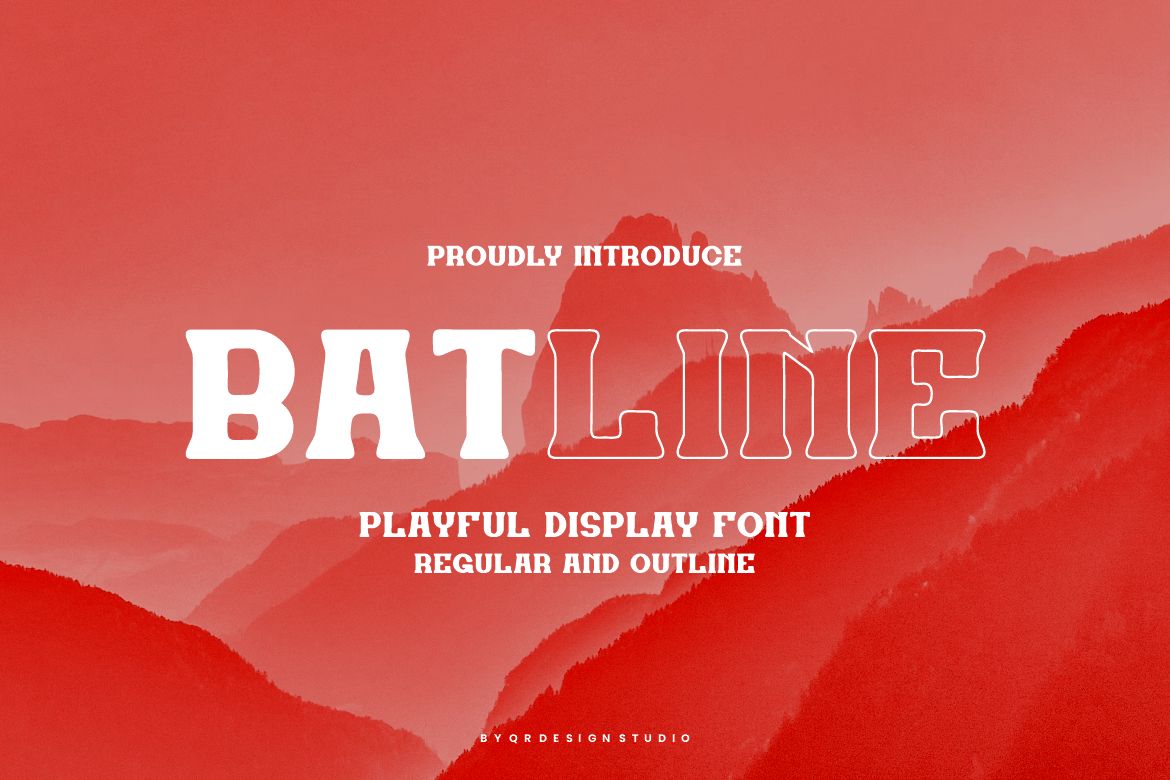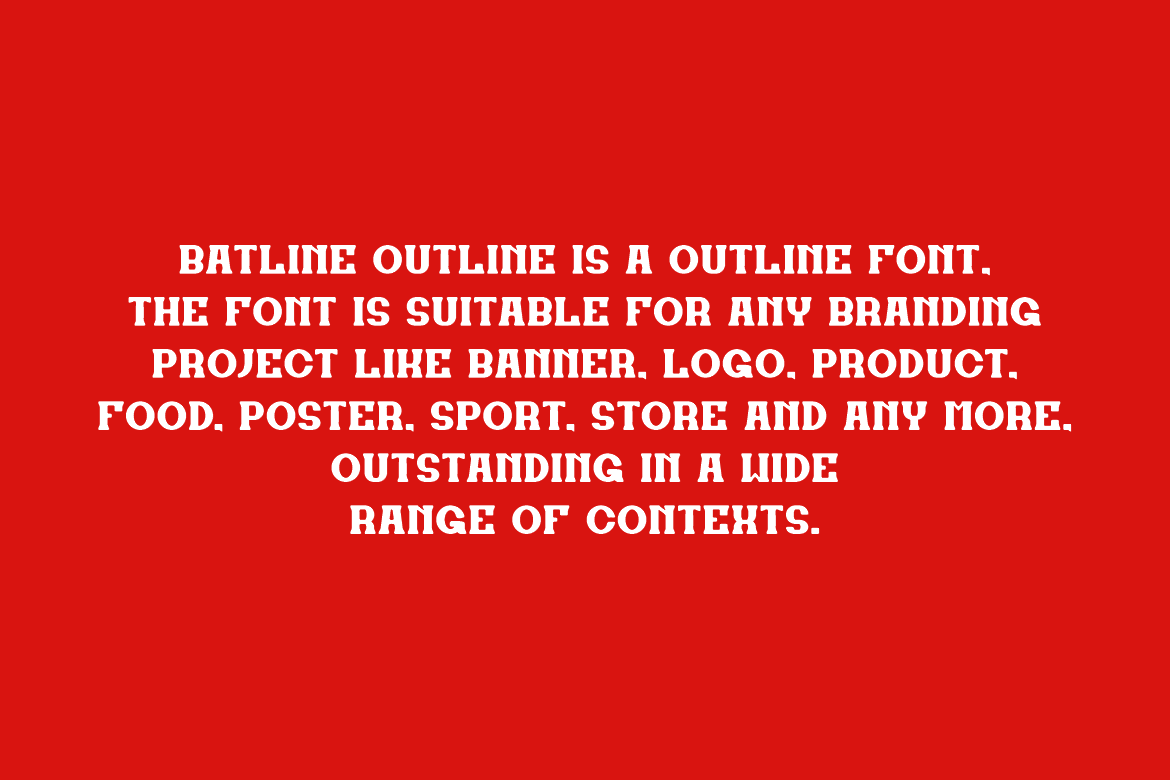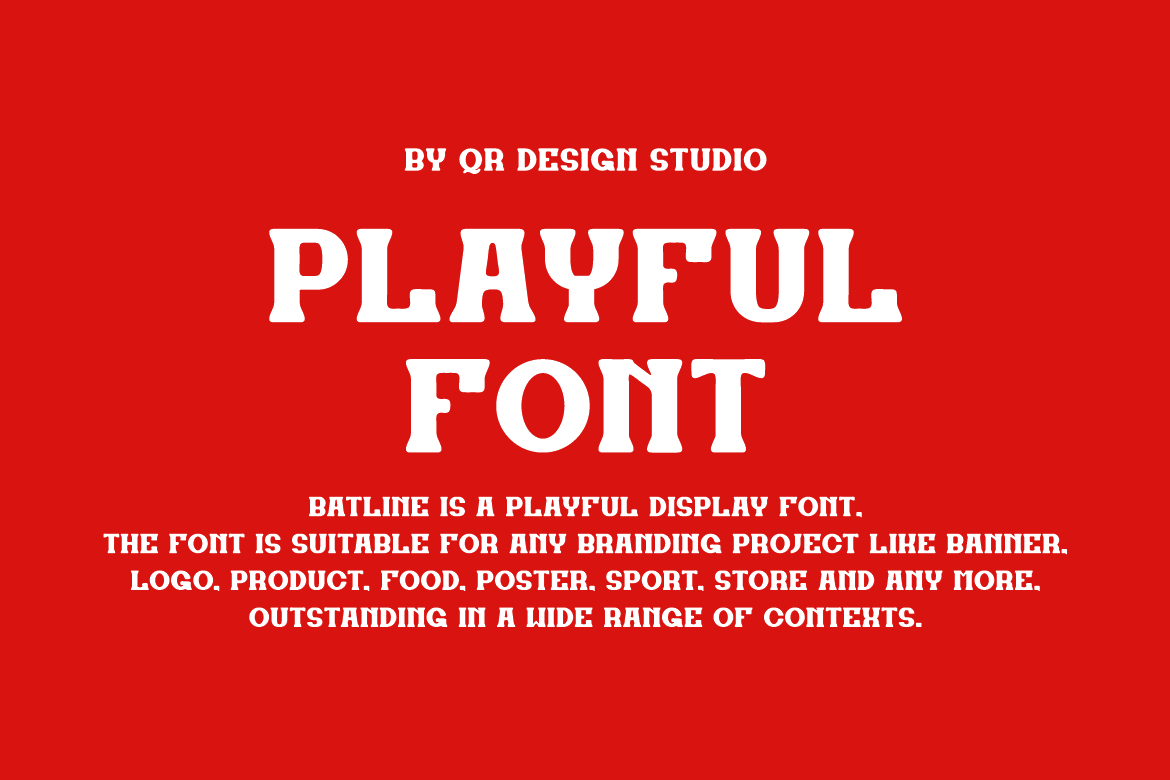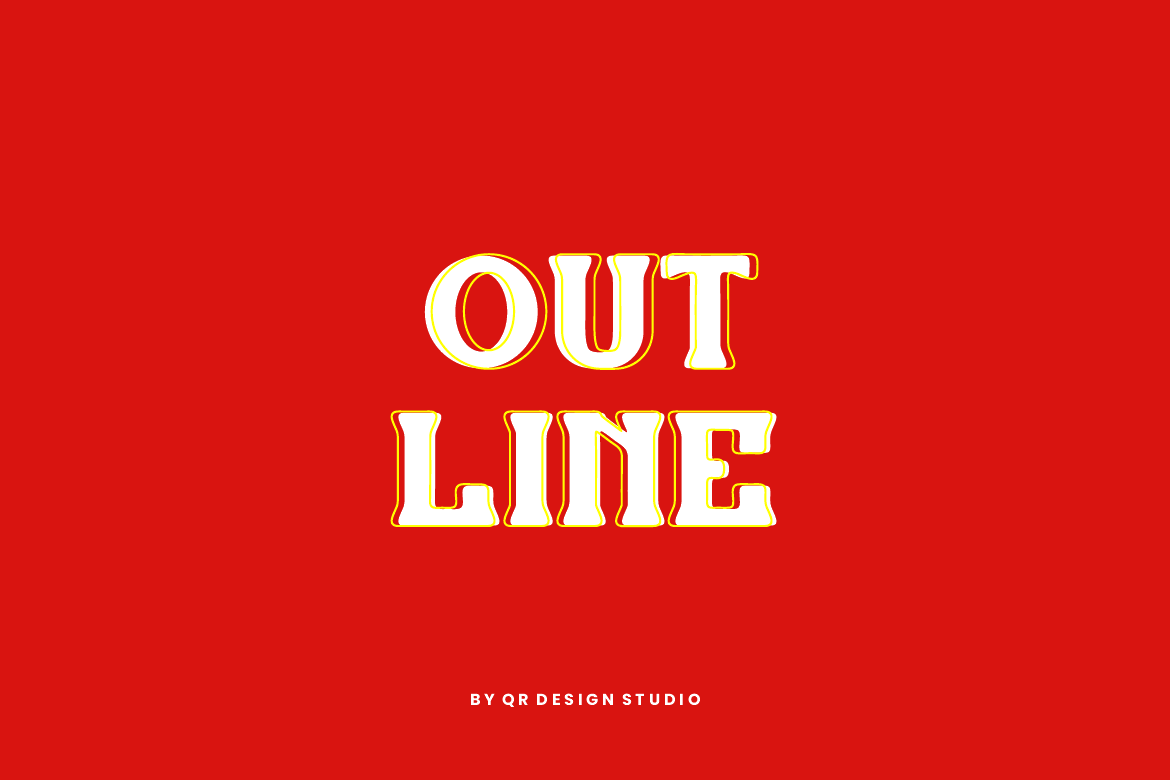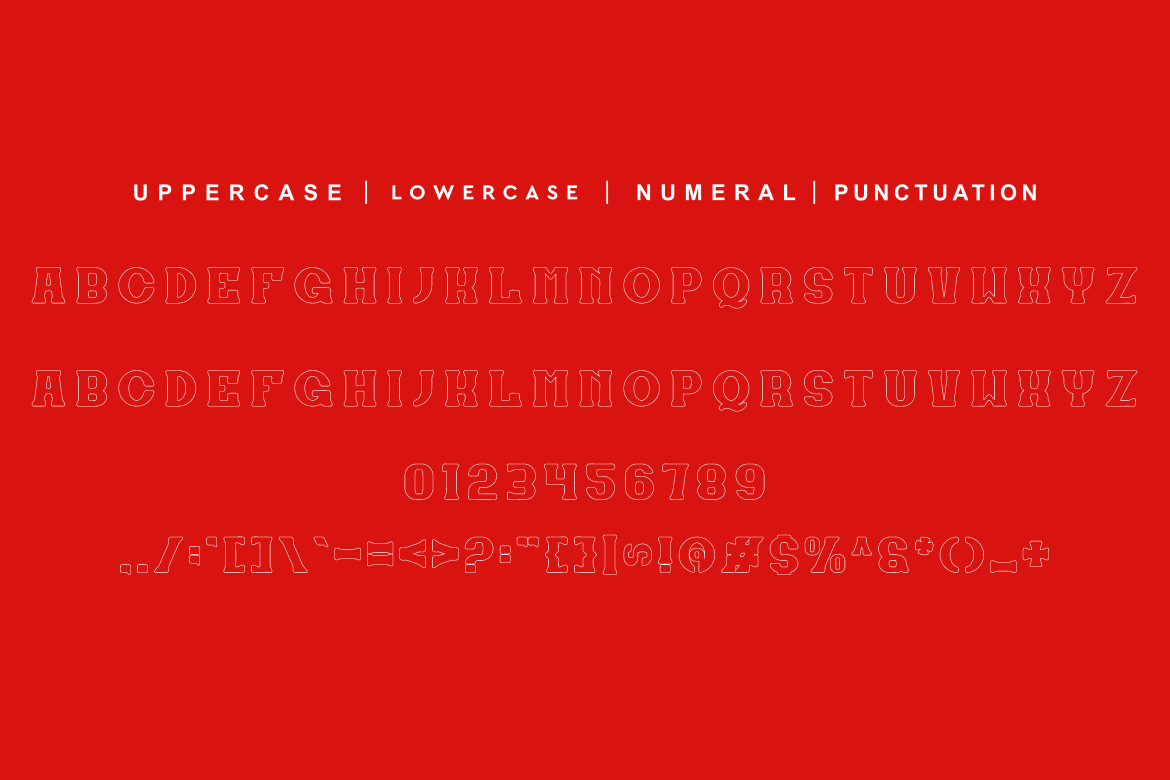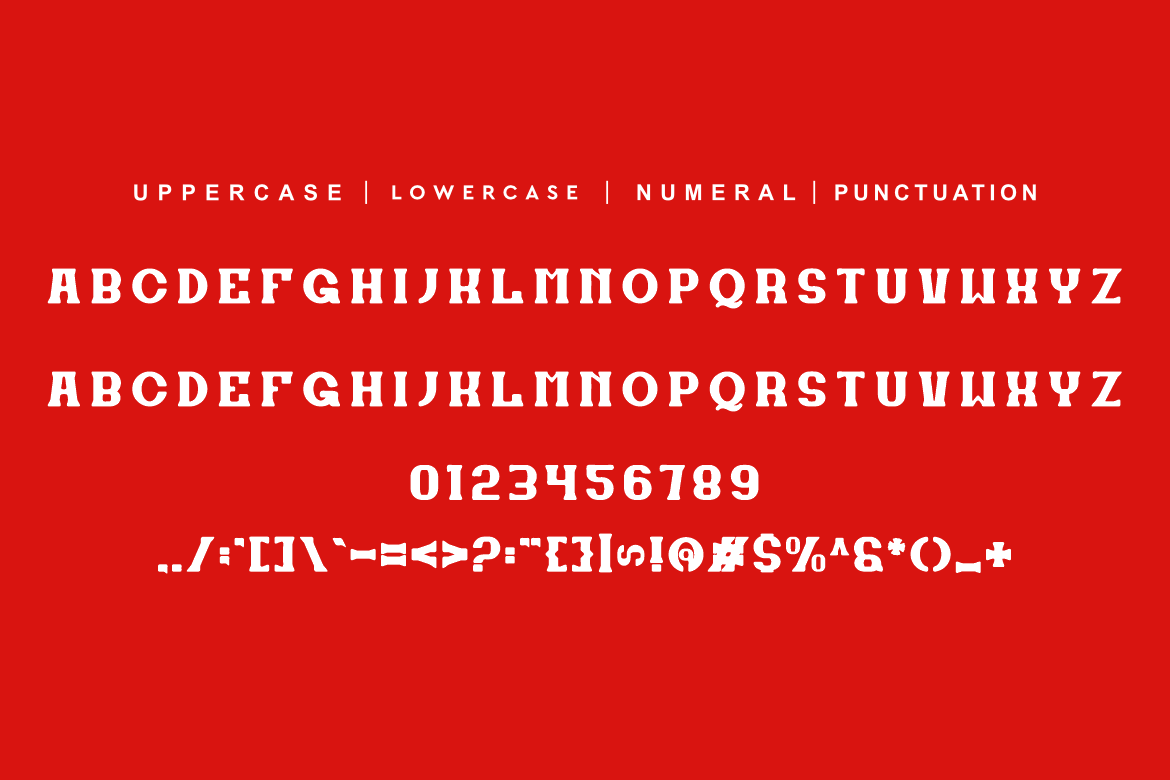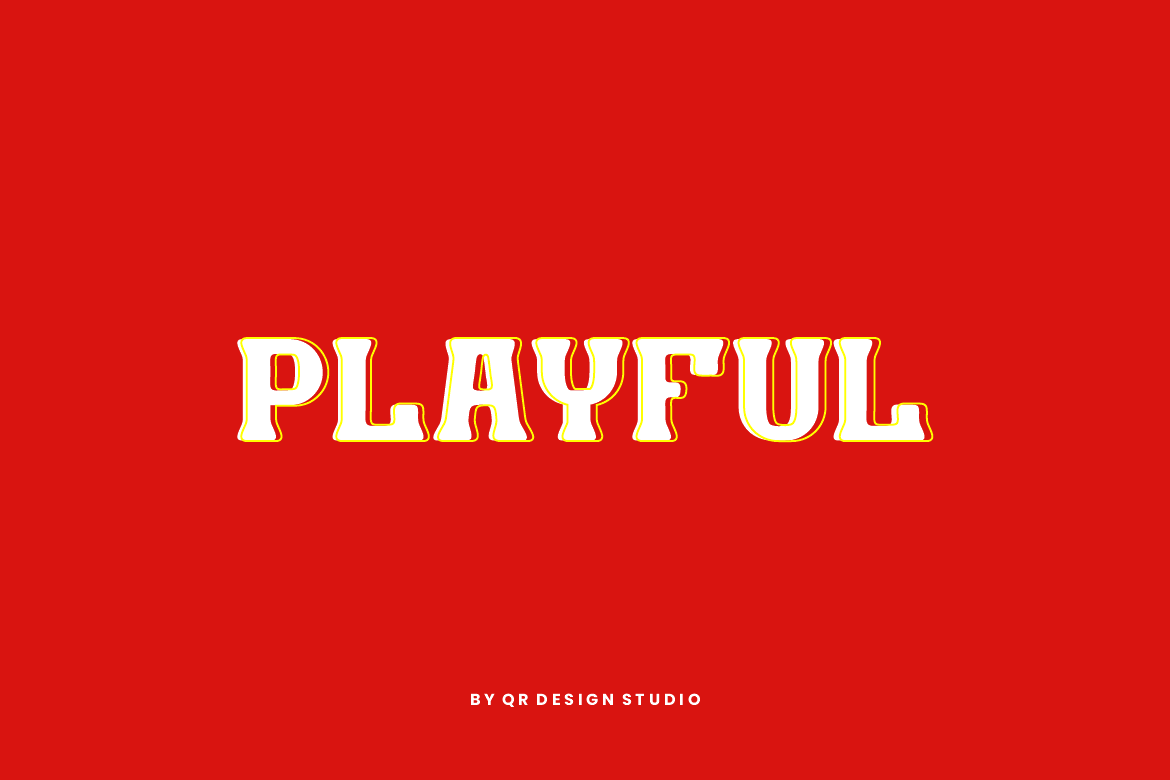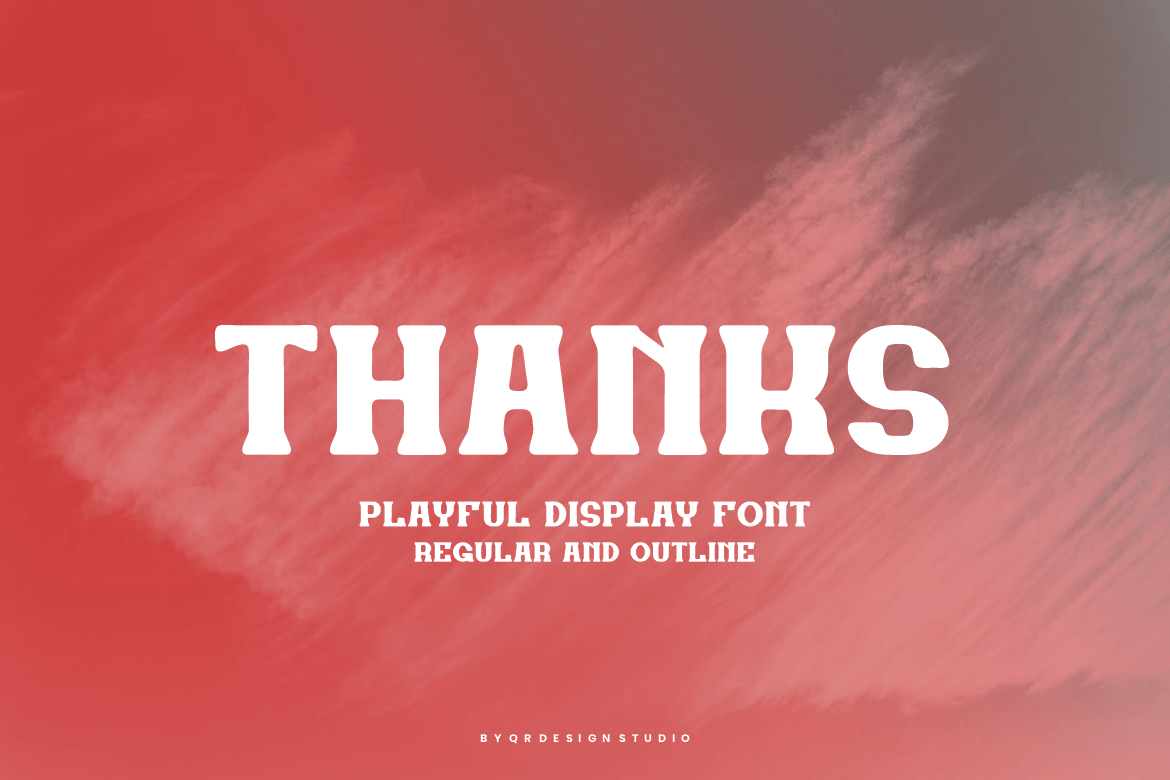
Batline – Font Duo & Outline Font
Batline Font is a serif and authentic display font.
The font is suitable for any branding project like poster, logo, sport, and many more.
Outstanding in a wide range of contexts.